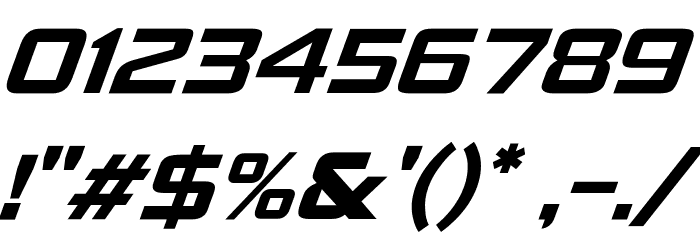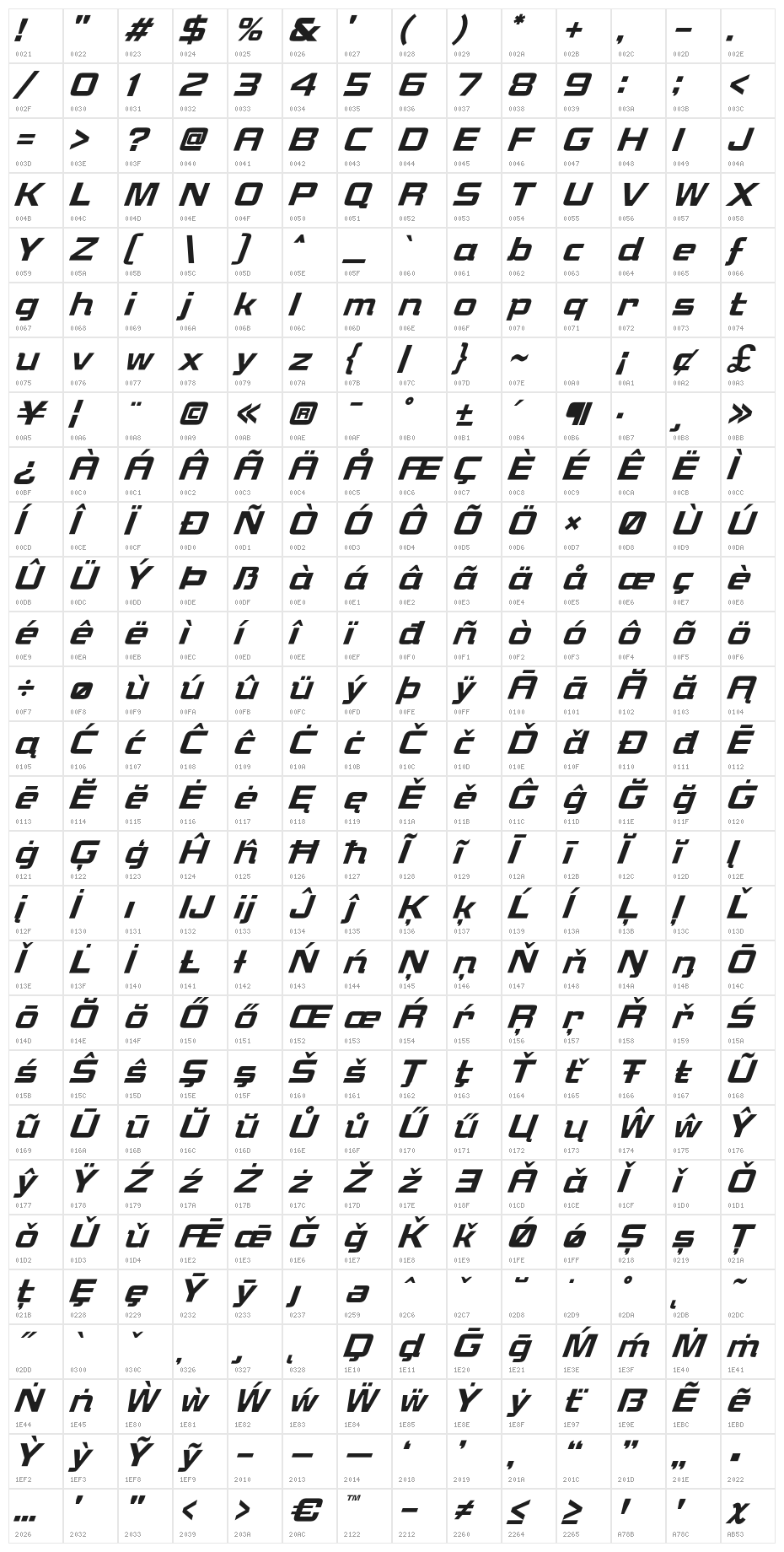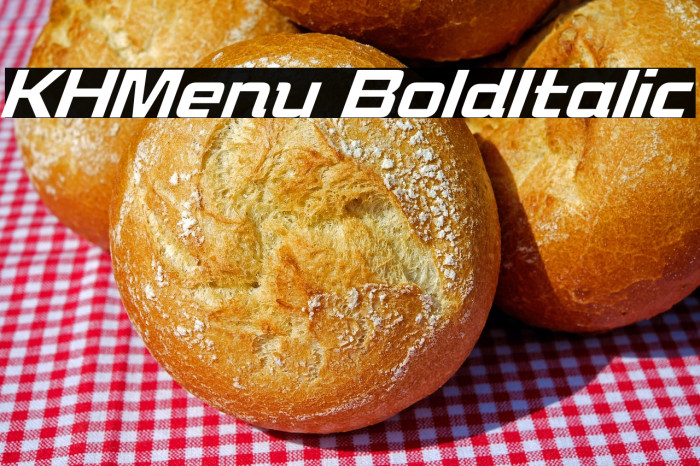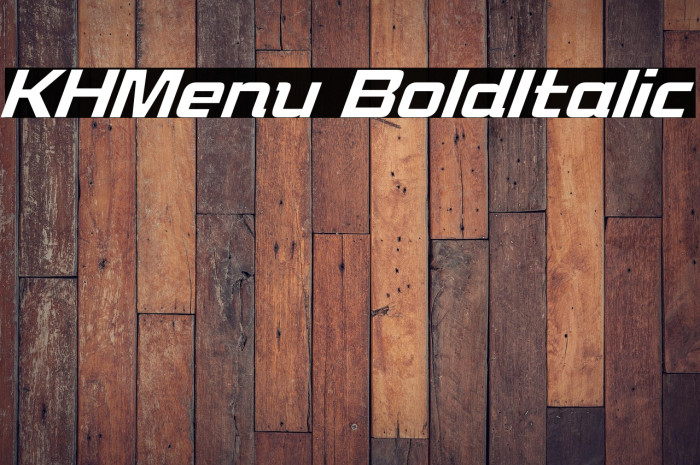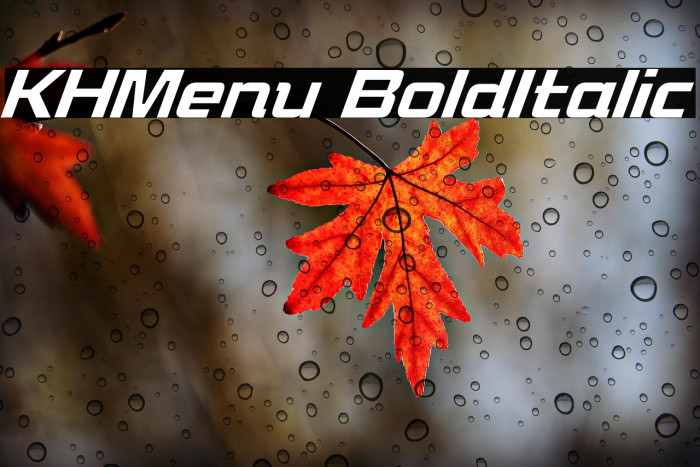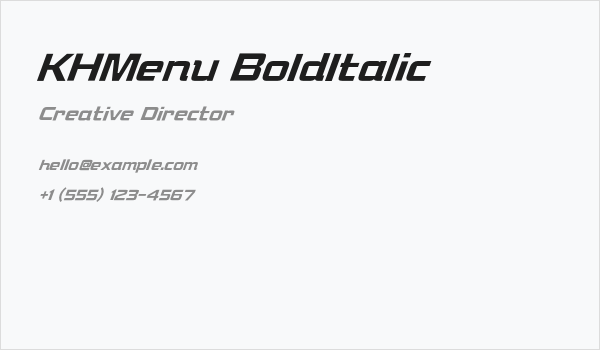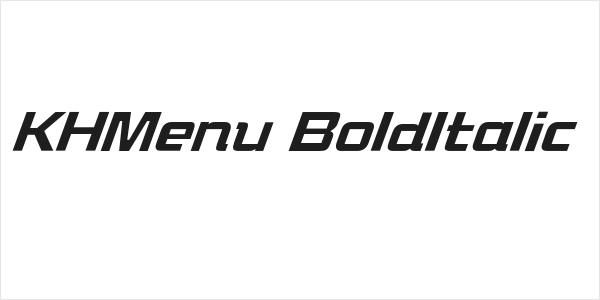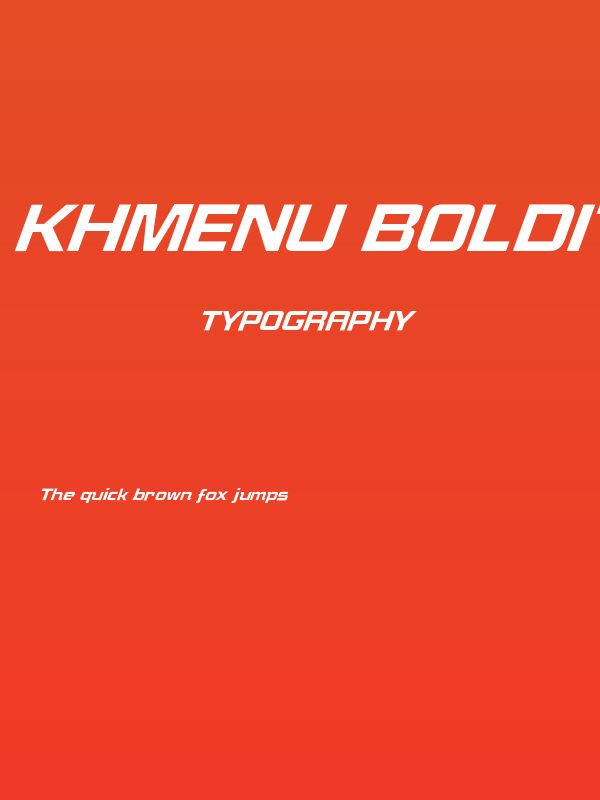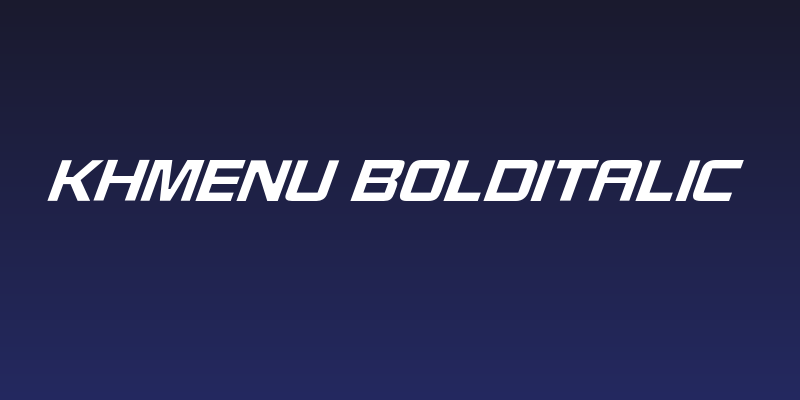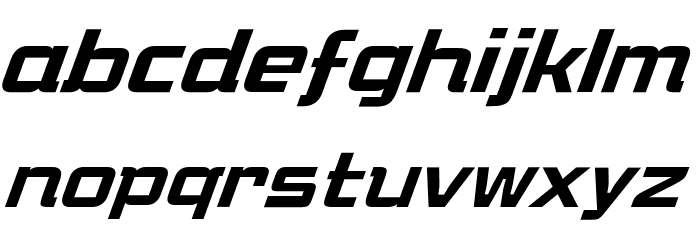
KHMenu BoldItalic Font
KHMenu BoldItalic Description
This font exhibits a bold and italicized style with a modern and dynamic appearance. The characters are slightly slanted, giving a sense of motion and speed. The strokes are uniform in thickness, contributing to a clean and streamlined look. The uppercase and lowercase letters maintain a consistent design, enhancing readability. The numerals and special characters are well-integrated, matching the overall aesthetic. This font is suitable for projects that require a contemporary and energetic feel.
| Proposed Projects | Ideal for branding, sports team logos, automotive designs, and modern advertising campaigns. |